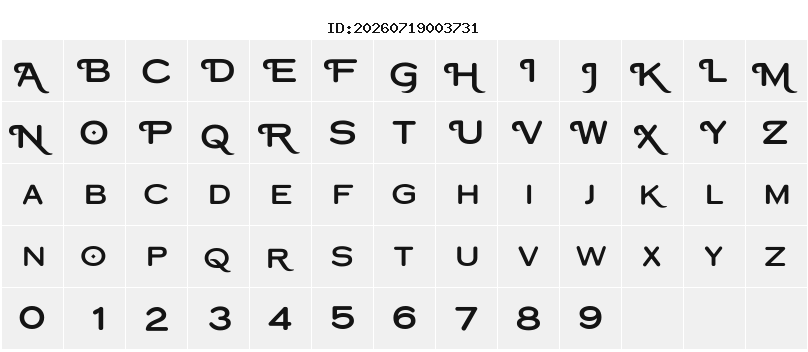
Copperplate Classic Round Swash Preview
• Font Name: Copperplate Classic Round Swash
• PostScript Name: CopperplateClassicRoundSwash
About Copperplate Classic Round Swash.ttf
Copperplate Classic Round Swash.ttf is a modern, elegant sans-serif font designed for ultimate readability and visual harmony. Perfect for branding, headlines, web design, and print materials.